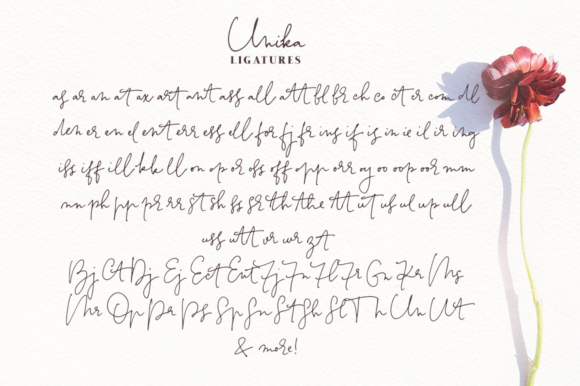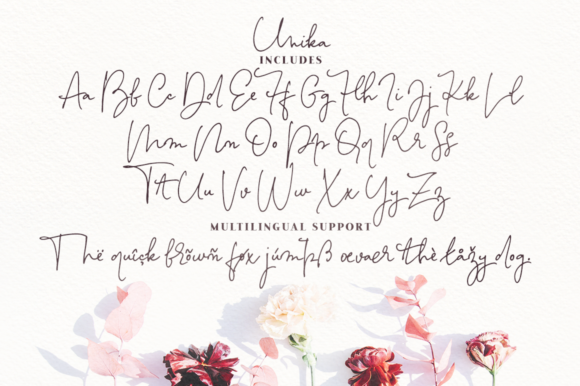
Unika Font
db-ku.com - Script & Handwritten -- Unika is a versatile duo font (handwritten and display), masterfully designed to become a top choice. It maintains its classy calligraphic influences while feeling contemporary and fresh. Fall in love with it and bring your projects to the highest levels!